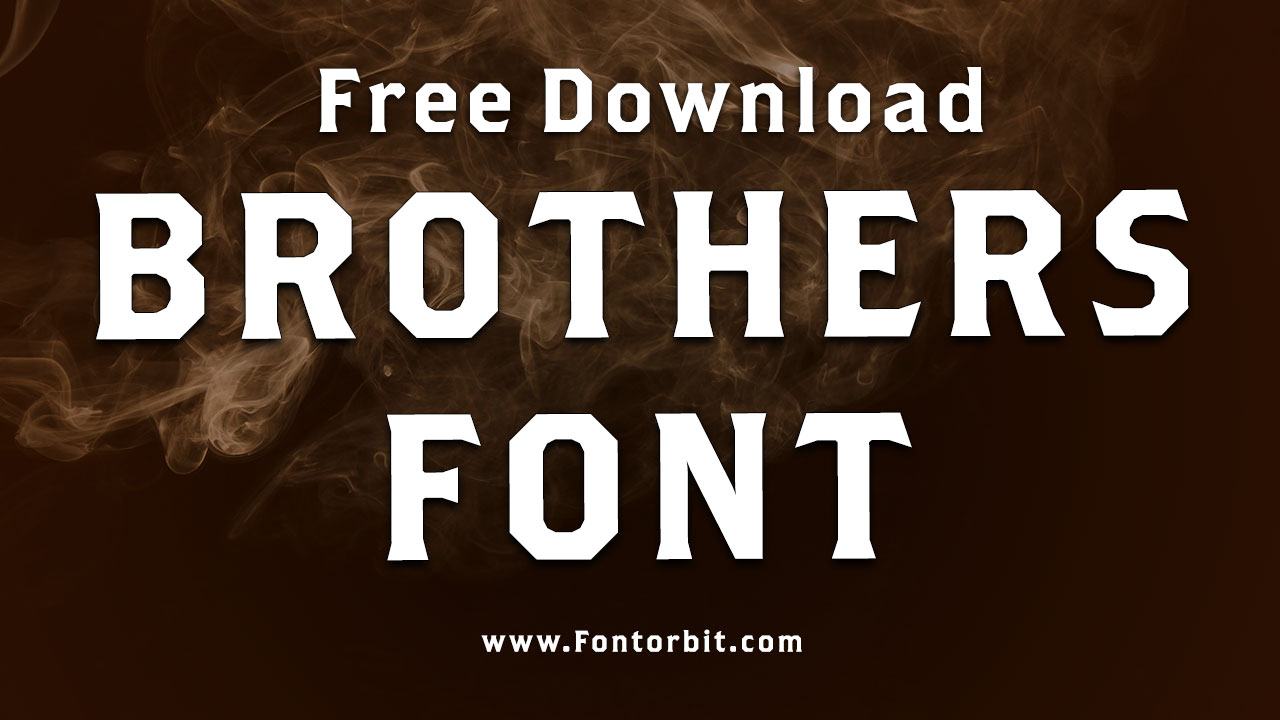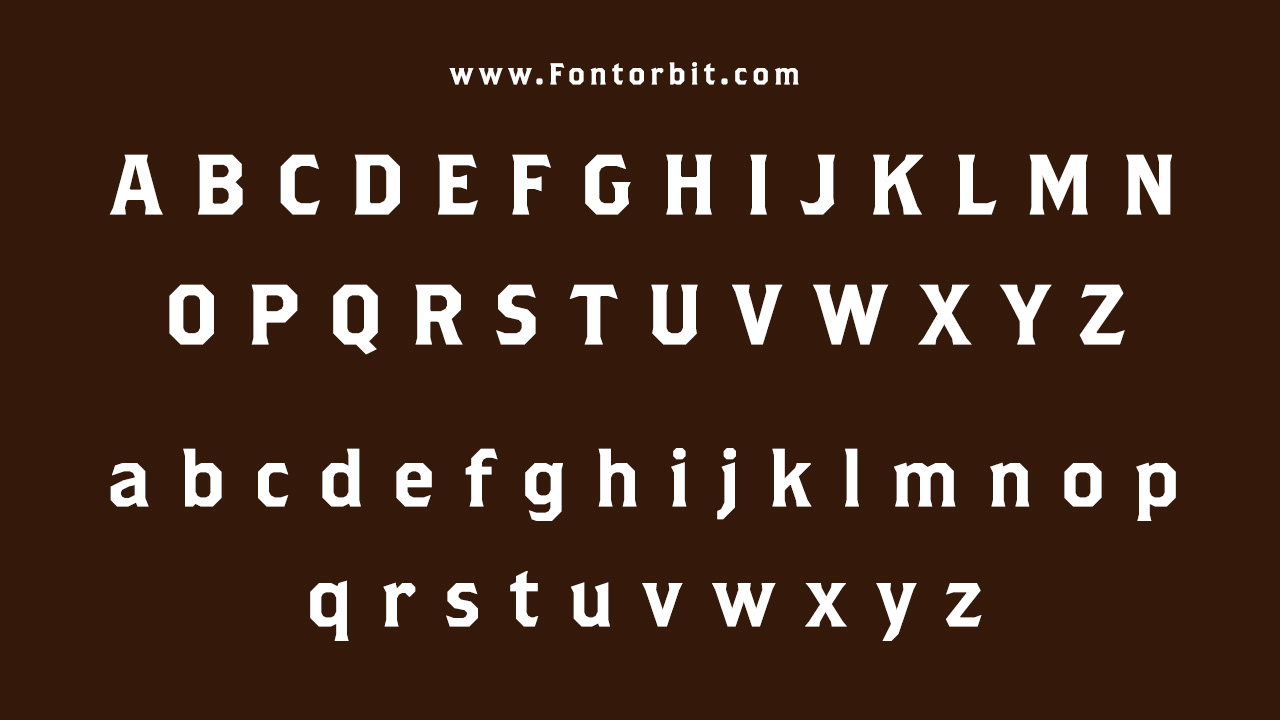
Brothers is a distinctive and eye-catching typeface designed by John Downer and released through Emigre in 1999. This typeface is inspired by the nostalgic lettering found on early 20th-century circus show posters, offering a retro and “hipster” vibe that adds a unique touch to any design project.
The Brothers font family includes various styles that cater to different design needs, making it a versatile choice for both personal and commercial uses.
Type Of The Brothers Font (Font Family)
The Brothers font family includes four notable styles:
- Brothers OT Regular Font
- Brother OT SuperSlant Font
- Brother OT Bold Font
- Brother OT Word Logos Font
Brothers excels in creating eye-catching headlines, vintage-inspired designs, and retro-styled text that stands out. Its various styles allow for flexibility in design, making it a popular choice among designers looking for a font with both personality and versatility.
The Brothers font stands out with its strong, geometric design and versatile style, making it suitable for various uses. Its clean lines and robust structure give it a modern, professional appearance, ideal for branding, headlines, and other impactful design elements.Whether used in digital or print formats, “Brothers” offers a distinctive and memorable typographic choice.
1.What Makes Brothers Font Unique?
Brothers font stands out for its geometric, sans-serif design with clean lines and a modern, friendly appearance. Its versatility and readability make it suitable for both digital and print use.
2.What Are The Reviews For Brothers Font?
Reviews for Brothers font are generally positive, highlighting its clear readability and modern aesthetic. Users appreciate its versatility in various design projects and its clean, approachable style. Some note it’s particularly effective in branding and user interface design.
4.What Is The Origin Of The Brothers Font?
Brothers Font was designed by John Downer and released by Emigre in 1999. It draws inspiration from the distinctive lettering used in early 20th-century circus shows, blending vintage charm with modern design elements.
6.What Is The Closest Font To The Brothers?
The closest font to the Brothers is “Worker™” by Ndiscover, with its strong, geometric design similar to many brotherly, industrial-inspired typefaces.